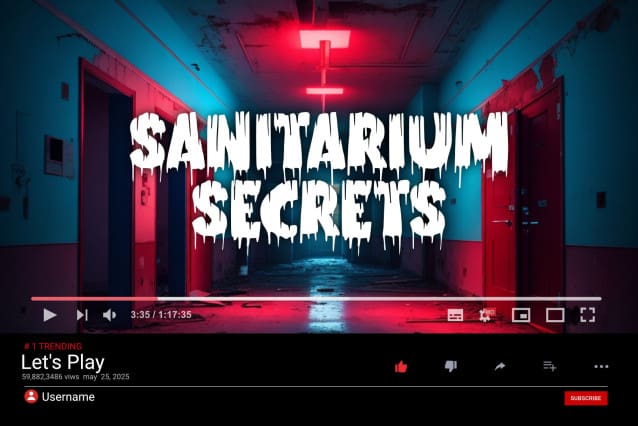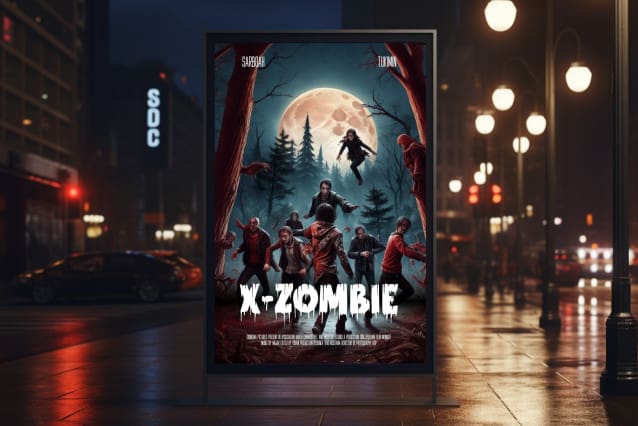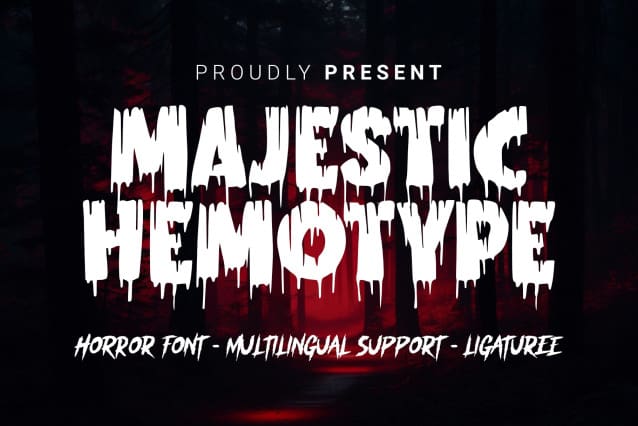
Majestic Hemotype Font
Majestic Hemotype Font – Horror Font is a bold display font that encapsulates the essence of horror with a design reminiscent of blood. This font evokes a sense of macabre elegance and fear, making it a perfect choice for projects seeking to create a terrifying and visceral atmosphere.
Key features of Majestic Hemotype include:
Blood-Inspired Aesthetics: The letters in Majestic Hemotype are designed to mimic the look of bloodstains, with irregular drips and splatters. This design element immediately invokes a sense of dread and gore.
Bold and Striking: The font boasts a bold and striking appearance, making it impossible to ignore. It demands attention and adds a touch of foreboding to any text it’s applied to.
Elegantly Macabre: Despite its horror-inspired design, Majestic Hemotype manages to maintain an air of elegance. The combination of boldness and blood-like aesthetics creates a unique and chilling contrast.
Terror-Inducing Impact: This font is highly effective for projects aiming to convey terror and shock. Its design conveys a visceral, horrifying feeling, which is ideal for horror stories, Halloween-themed designs, or any project where fear is the central theme.
Versatile Use: Majestic Hemotype can be used for headlines, posters, book covers, and other prominent elements in various design projects where a horror and blood-related theme is required.